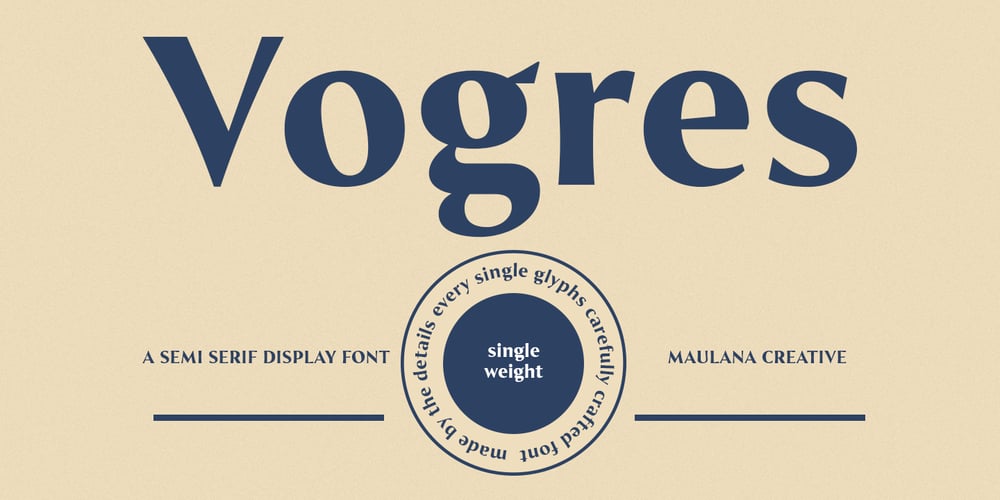
MC Vogres
MC Vogres font
MC Vogres Font Family was designed by Gilang Maulana and published by Maulana Creative. MC Vogres contains 1 styles and family package options. Vogres is a Display Sans font. Wavy stress stem stroke, fun character with a bit of ligatures and alternates. To give you an extra creative work. Vogres font support multilingual more than 100+ language. This font is good for logo design, Social media, Movie Titles, Books Titles, a short text even a long text letter and good for your secondary text font with script or serif. Make a stunning work with Vogres font. Cheers, Maulana Creative